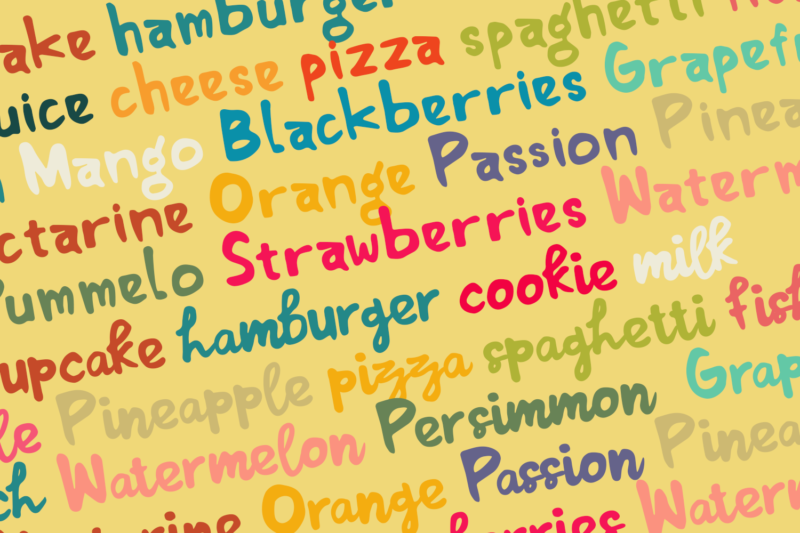
Emirah is a cute handwritten font with a matching script and regular will be perfect for book, title branding, product packaging, invitation, quotes, t-shirt, label, poster, logo etc.
– Uppercase & Lowercase
– Number & Symbol
– International Glyphs
– Multilingual support